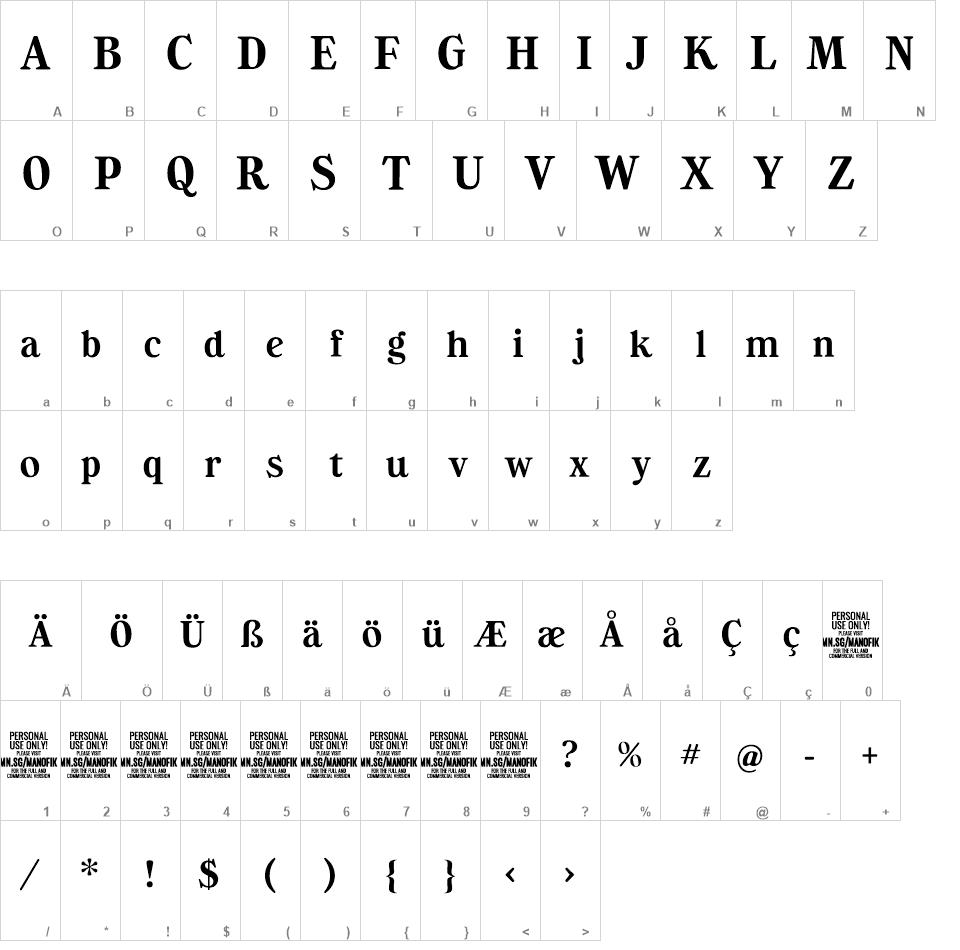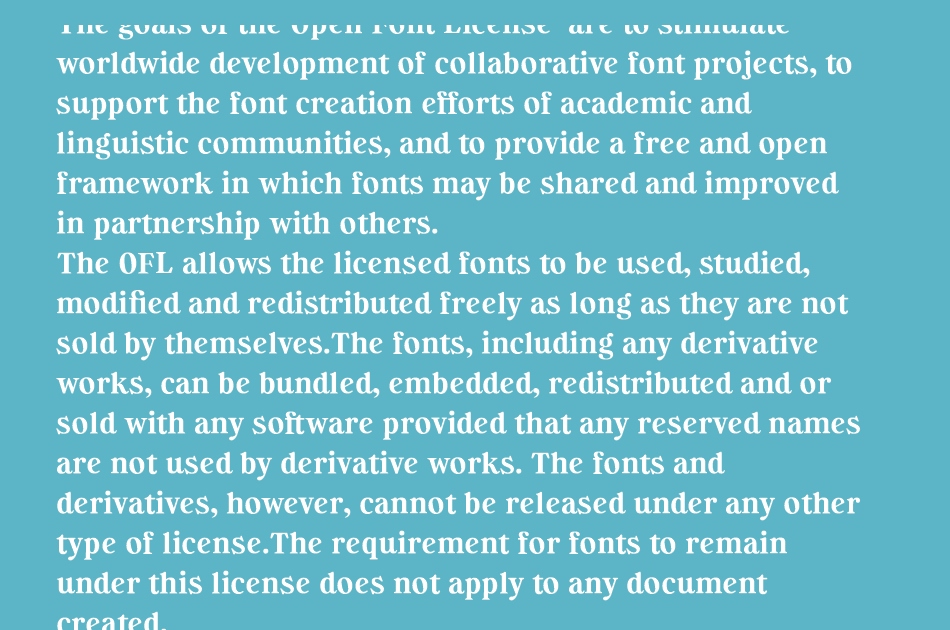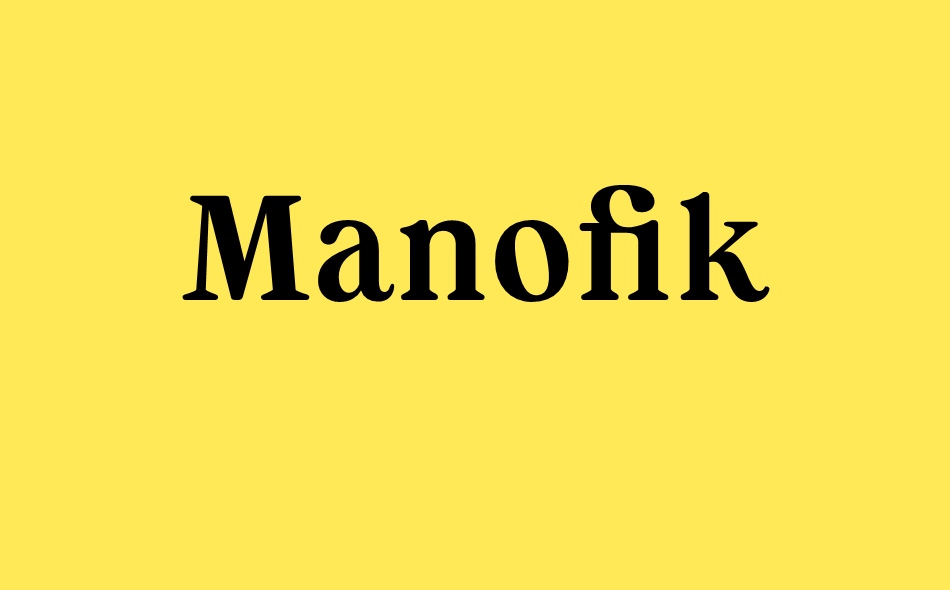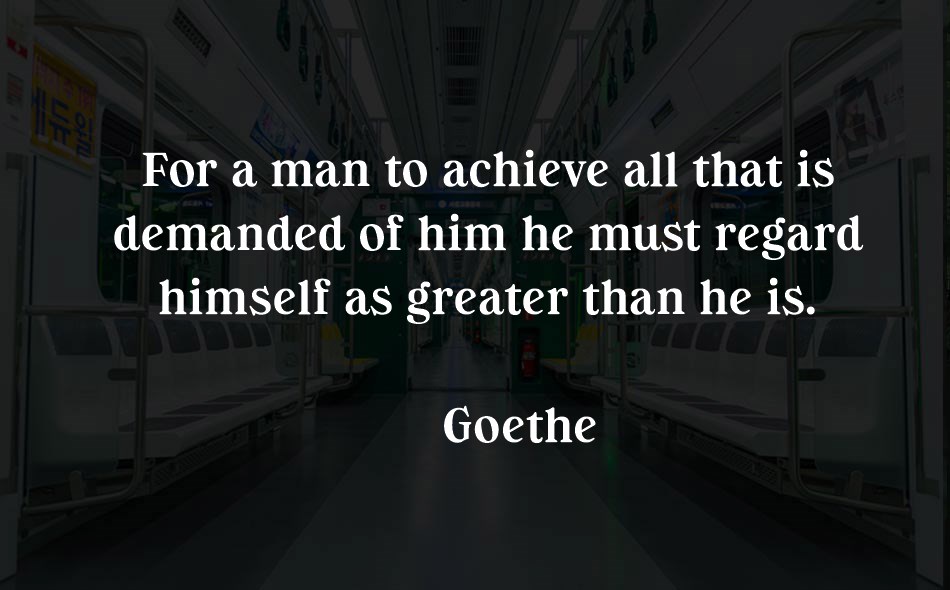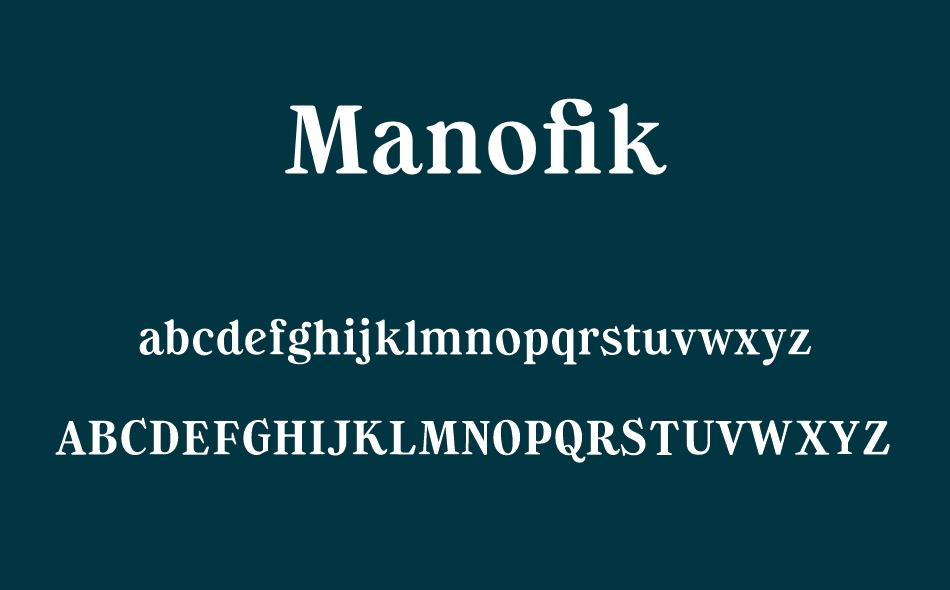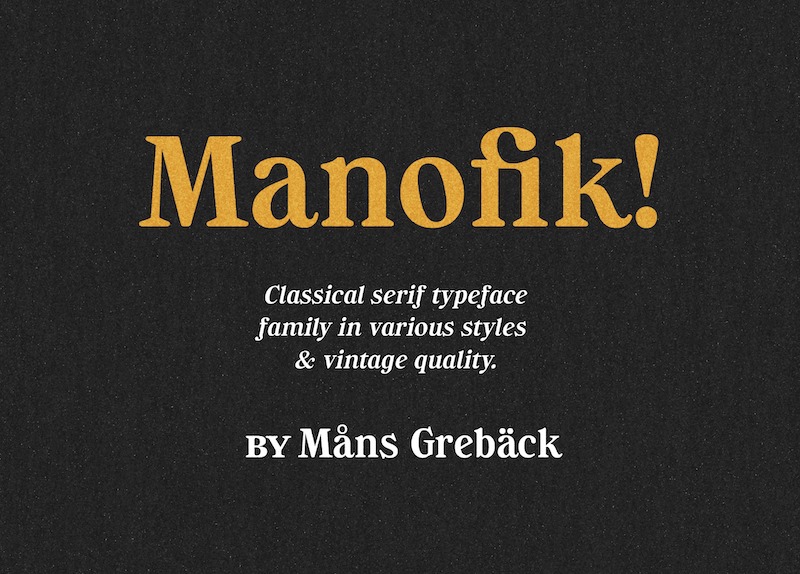
Manofik font
Manofik is a classic serif typeface.
It has round and relaxed retro forms, a comfortable thickness and a stable base. A traditional legible font, the Manofik family sets the authenticity to any project. It could be used for a hamburger logo, a product headline, or a body text that requires that extra bit of personality.
This expressive type is provided in four styles: Manofik Regular, Manofik Bold, Manofik Italic and Manofik Bold Italic
The font is built with advanced OpenType functionality and has a guaranteed top-notch quality, containing stylistic and contextual alternates, ligatures and more features; all to give you full control and customizability. It has a very extensive lingual support, covering Arabic, Cyrillic, Capital Greek and all Latin-based languages, from North Europe to South Africa, from America to South-East Asia. It contains all characters and symbols you'll ever need, including all punctuation and numbers.